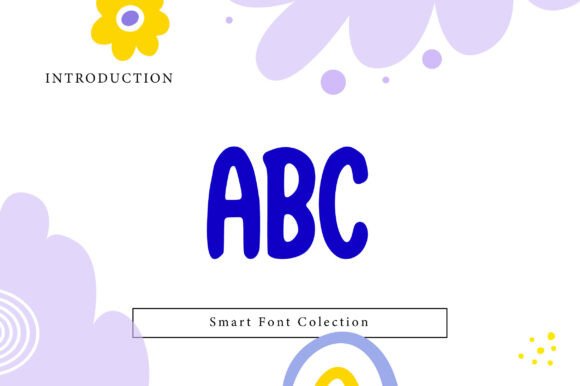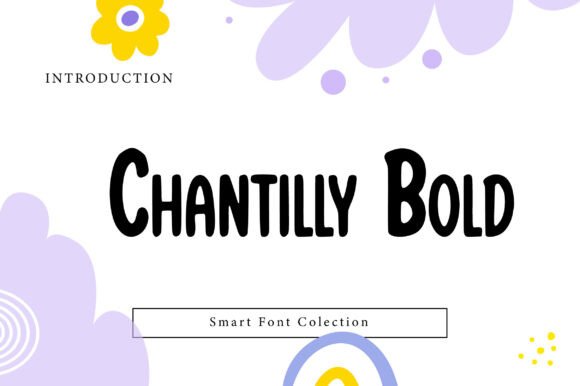
Introducing Chantilly Bold Font: The Perfect Blend of Bold and Sweet
Are you tired of using traditional bold fonts that come across as harsh and overpowering? Look no further than the Chantilly Bold font, a charming and soft-natured display sans-serif typeface that’s sure to bring a gentle, friendly energy to any layout. As part of a “smart” font collection, Chantilly Bold is designed to move away from the harshness of traditional bold fonts, instead utilizing rounded terminals and a balanced x-height that feels incredibly inviting and relatable.
The Characteristics of Chantilly Bold Font
So, what makes Chantilly Bold font so unique? For starters, its rounded terminals give it a soft and approachable feel, making it perfect for designs where a sense of comfort and clarity is paramount. Additionally, the font’s balanced x-height ensures that it’s easy to read, even at larger sizes. This makes Chantilly Bold font an excellent choice for a variety of applications, from nursery decor and organic food branding to educational materials and more.
Perfect for Designs that Require a Personal Touch
The Chantilly Bold font is ideal for designs where you want your message to feel like a warm invitation rather than a loud shout. It’s perfect for boutique stationery, greeting cards, and lifestyle blog headers, where a personal touch can make all the difference. Whether you’re a designer, crafty DIY enthusiast, or simply someone who appreciates beautiful typography, Chantilly Bold font is sure to become a go-to solution for your design needs.
Pairing Chantilly Bold Font with Other Design Elements
To get the most out of Chantilly Bold font, try pairing it with thin, airy illustrations or a soft pastel color scheme. This will help enhance its gentle aesthetic and create a cohesive look that’s both visually appealing and effective. The font’s sweet and approachable nature also makes it an excellent choice for combining with other design elements, such as photographs or textures, to add depth and interest to your design.
Why Choose Chantilly Bold Font?
So, why choose Chantilly Bold font over other bold fonts on the market? For one, its unique blend of bold and sweet makes it a versatile solution that can be used in a wide range of applications. Additionally, its soft and approachable nature ensures that it will never come across as harsh or overpowering, making it perfect for designs where a personal touch is required. Whether you’re looking to elevate your brand’s personality or simply want to add a touch of warmth to your design, Chantilly Bold font is an excellent choice.
Design Applications for Chantilly Bold Font
So, what are some design applications where Chantilly Bold font really shines? Here are a few ideas to get you started:
- Nursery decor: The soft and gentle nature of Chantilly Bold font makes it perfect for nursery decor, where a sense of calm and serenity is paramount.
- Organic food branding: The font’s friendly and approachable feel also makes it an excellent choice for organic food branding, where a sense of wholesomeness and naturalness is key.
- Educational materials: Chantilly Bold font is also well-suited for educational materials, such as textbooks, workbooks, and activity sheets, where a sense of comfort and clarity is essential.
- Boutique stationery: The font’s sweet and elegant nature makes it perfect for boutique stationery, such as greeting cards, invitations, and thank-you notes.
- Lifestyle blog headers: Chantilly Bold font is also an excellent choice for lifestyle blog headers, where a sense of personality and style is key.
In conclusion, Chantilly Bold font is a charming and versatile typeface that’s sure to bring a gentle, friendly energy to any layout. With its soft and approachable nature, balanced x-height, and rounded terminals, it’s the perfect solution for designs where a sense of comfort and clarity is paramount. Whether you’re a designer, crafty DIY enthusiast, or simply someone who appreciates beautiful typography, Chantilly Bold font is an excellent choice for a wide range of applications. So why not give it a try and see how it can elevate your brand’s personality and style?